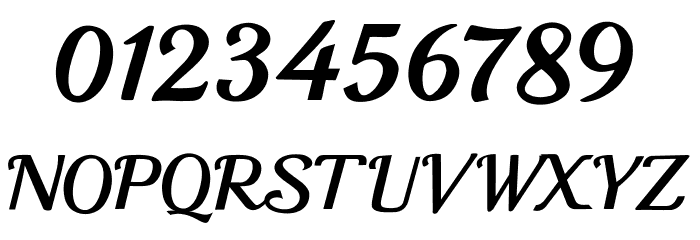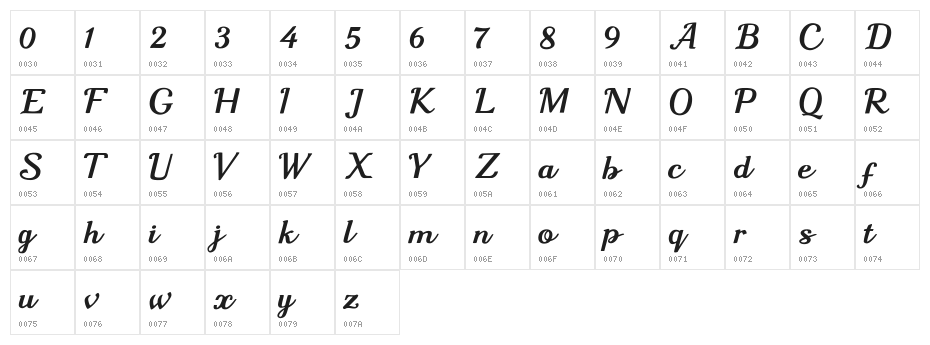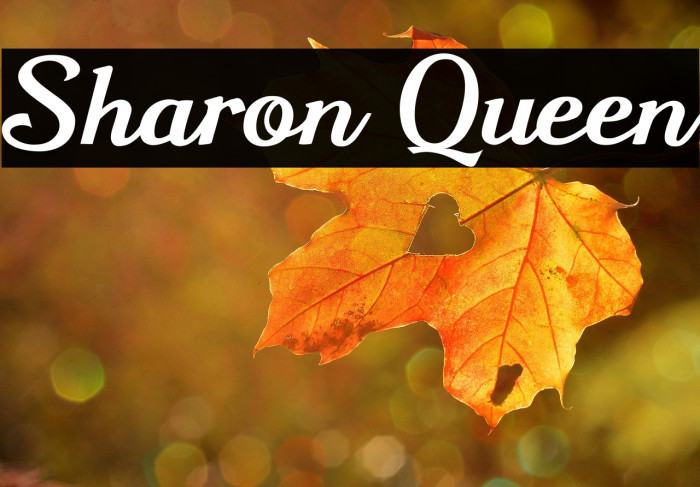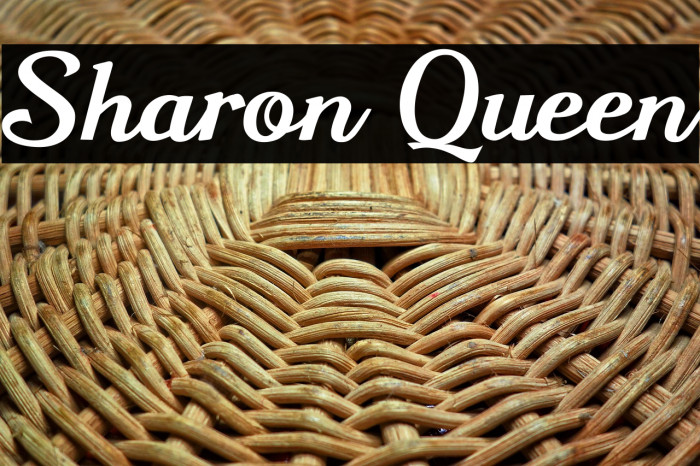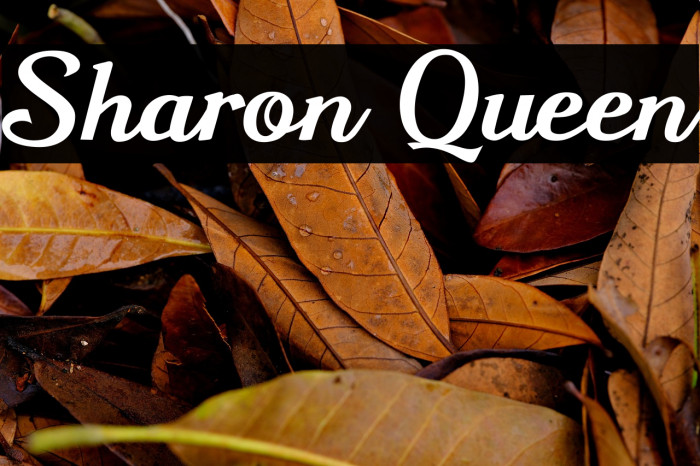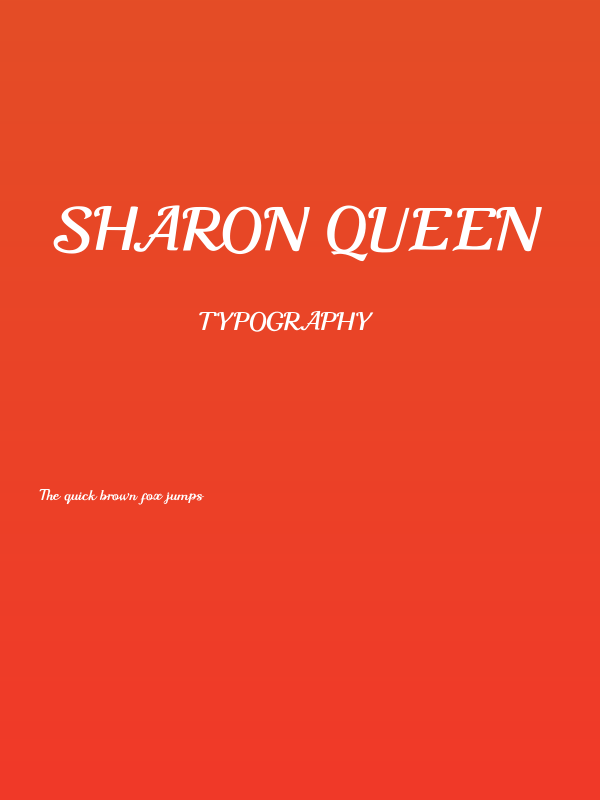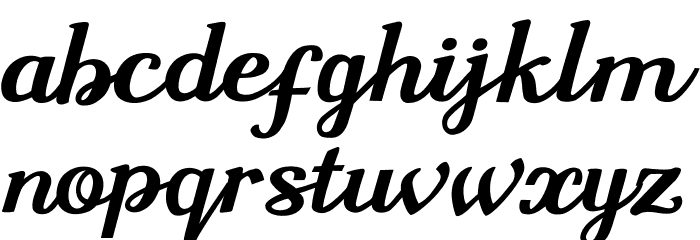
Sharon Queen Font
Sharon Queen Description
This font features a classic script style with elegant, flowing curves and a slight slant, giving it a sophisticated and graceful appearance. The uppercase letters are bold and prominent, while the lowercase letters maintain a smooth, connected flow, reminiscent of traditional calligraphy. The numerals are clear and well-defined, complementing the overall aesthetic. The font's design is both timeless and versatile, making it suitable for a variety of applications. Its distinct character shapes and moderate contrast in stroke thickness add to its readability and charm.
Overall StyleClassic
Use CaseHeadlines, Invitations, Branding
Proposed ProjectsIdeal for wedding invitations, elegant branding, greeting cards, and formal event programs.